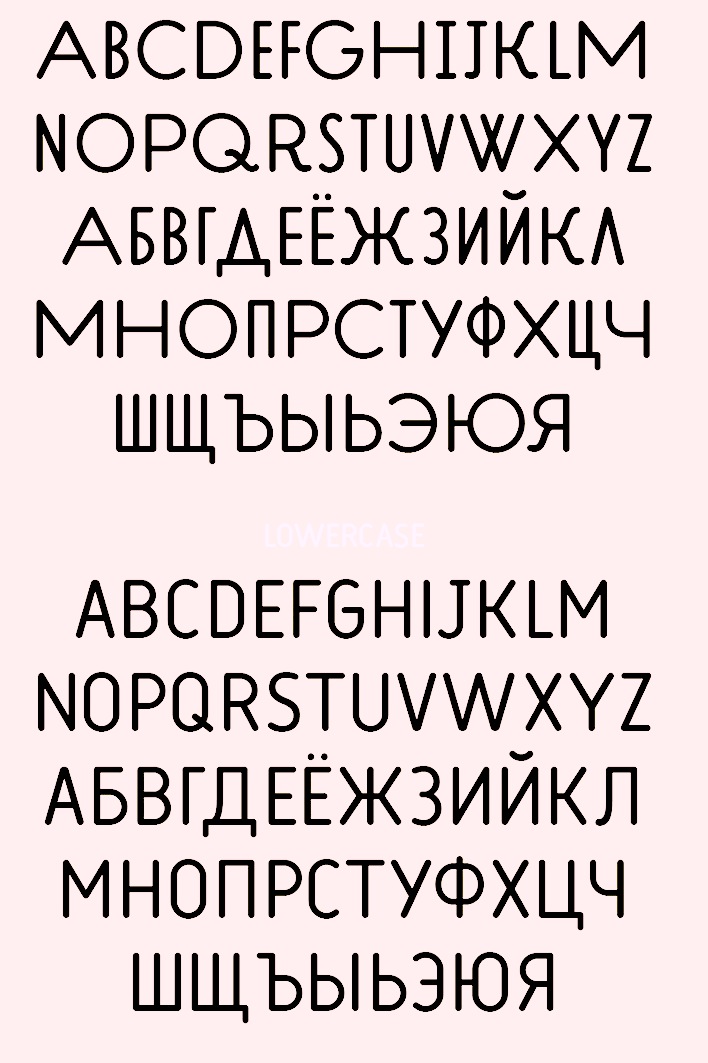
Triangle & Cross [Vladimir Likh]
Vlad Likh (Triangle & Cross) is an art director in Moscow. Creator of the free variable width Latin / Cyrillic sans font Konduktor (2013). In 2019 he designed the tall hairline sans typeface Option, which was inspired by geometric architectural fonts.